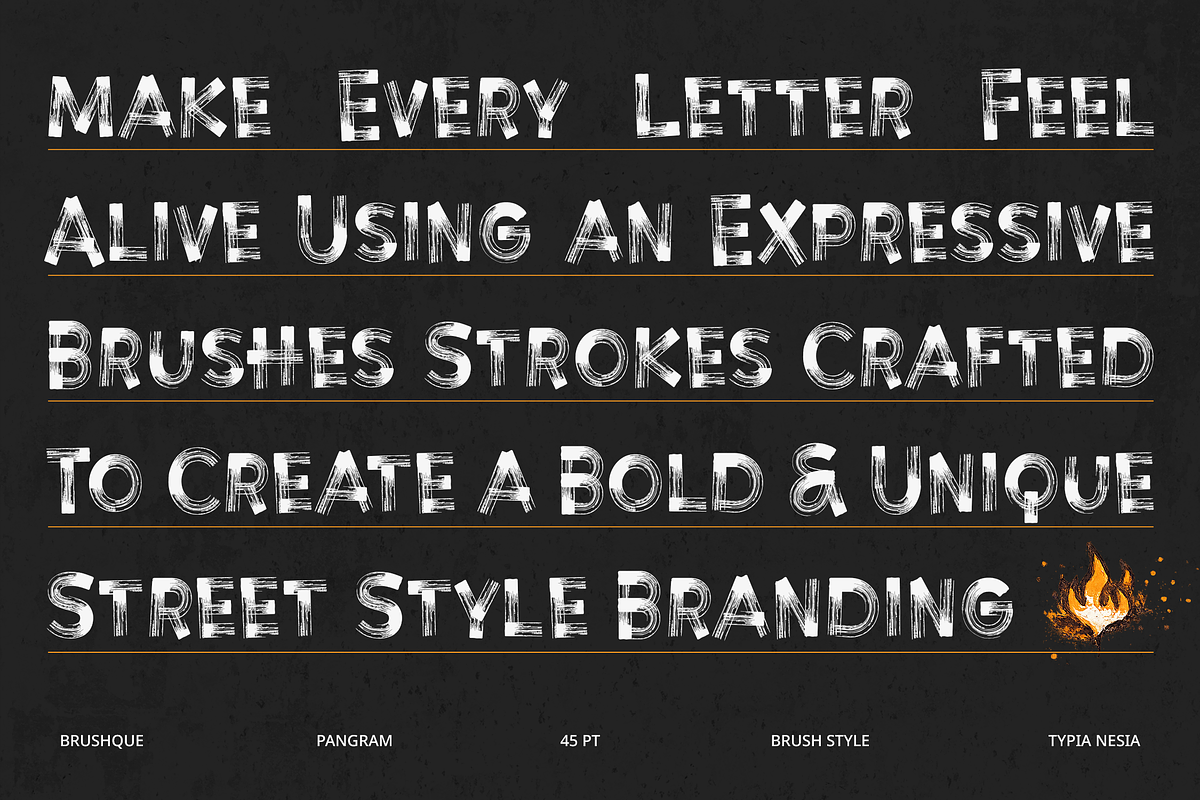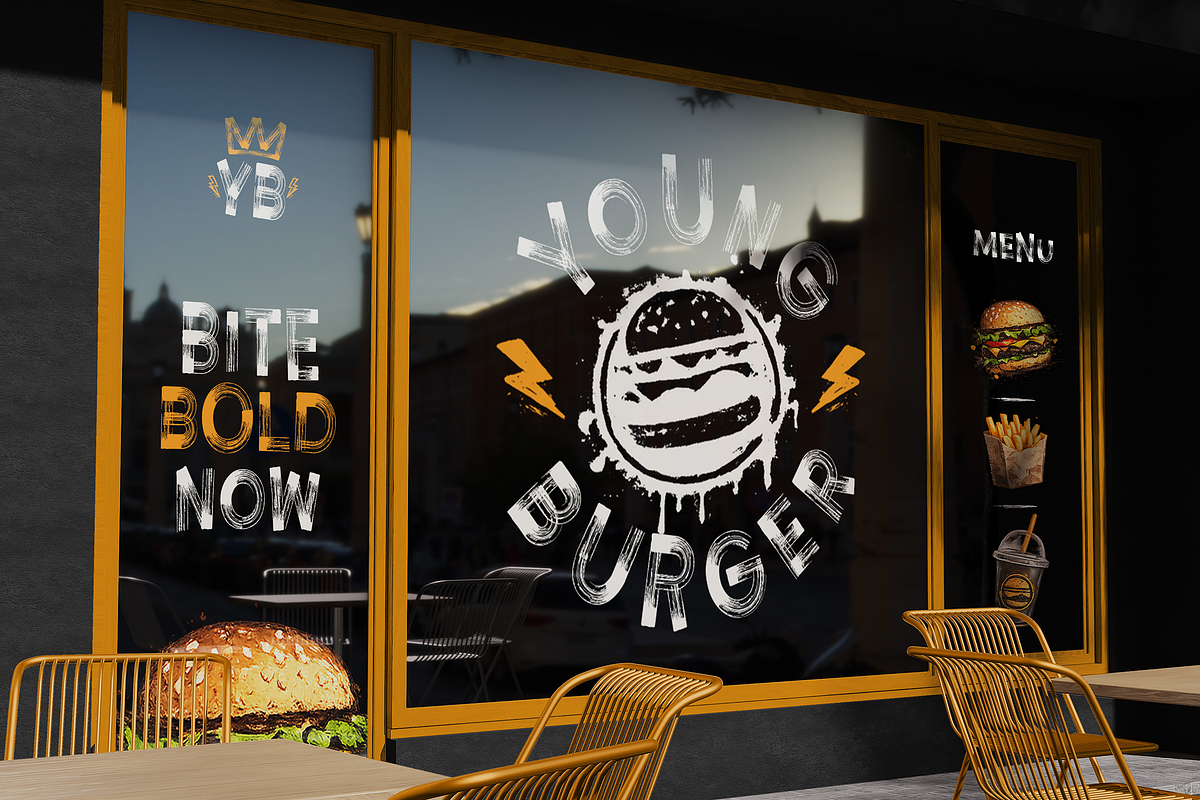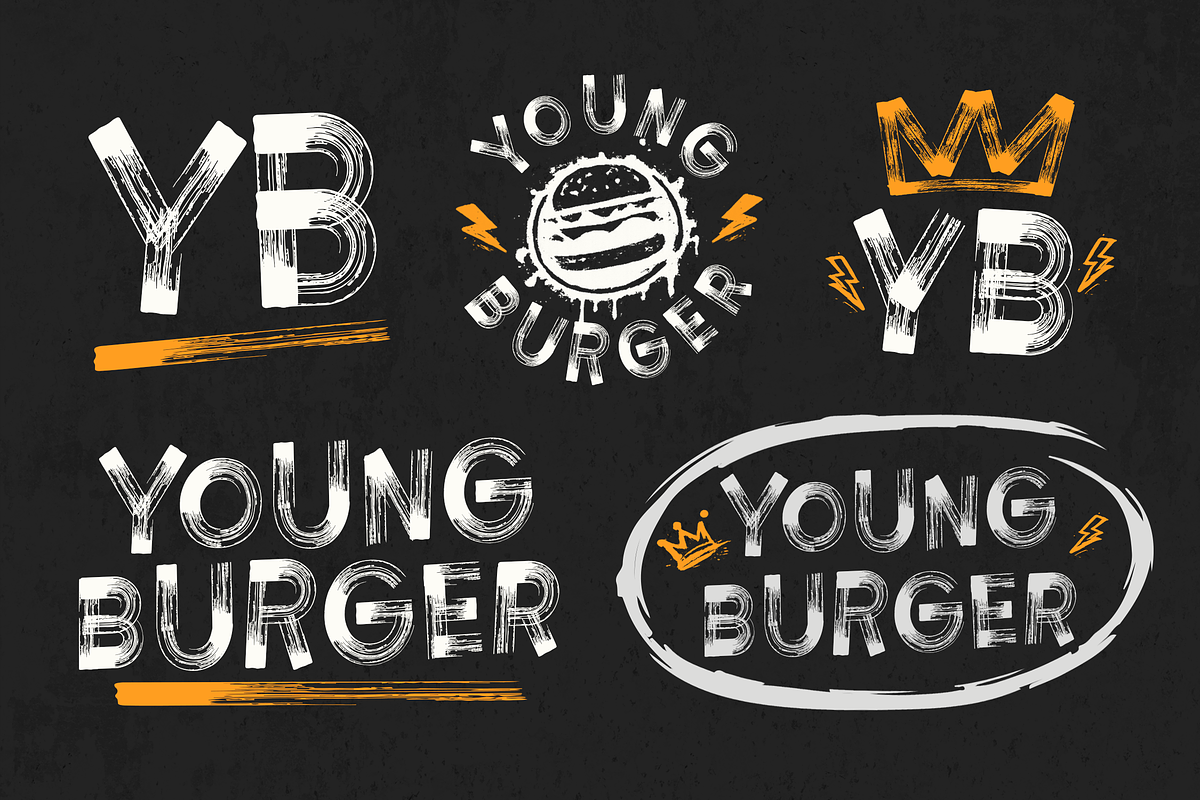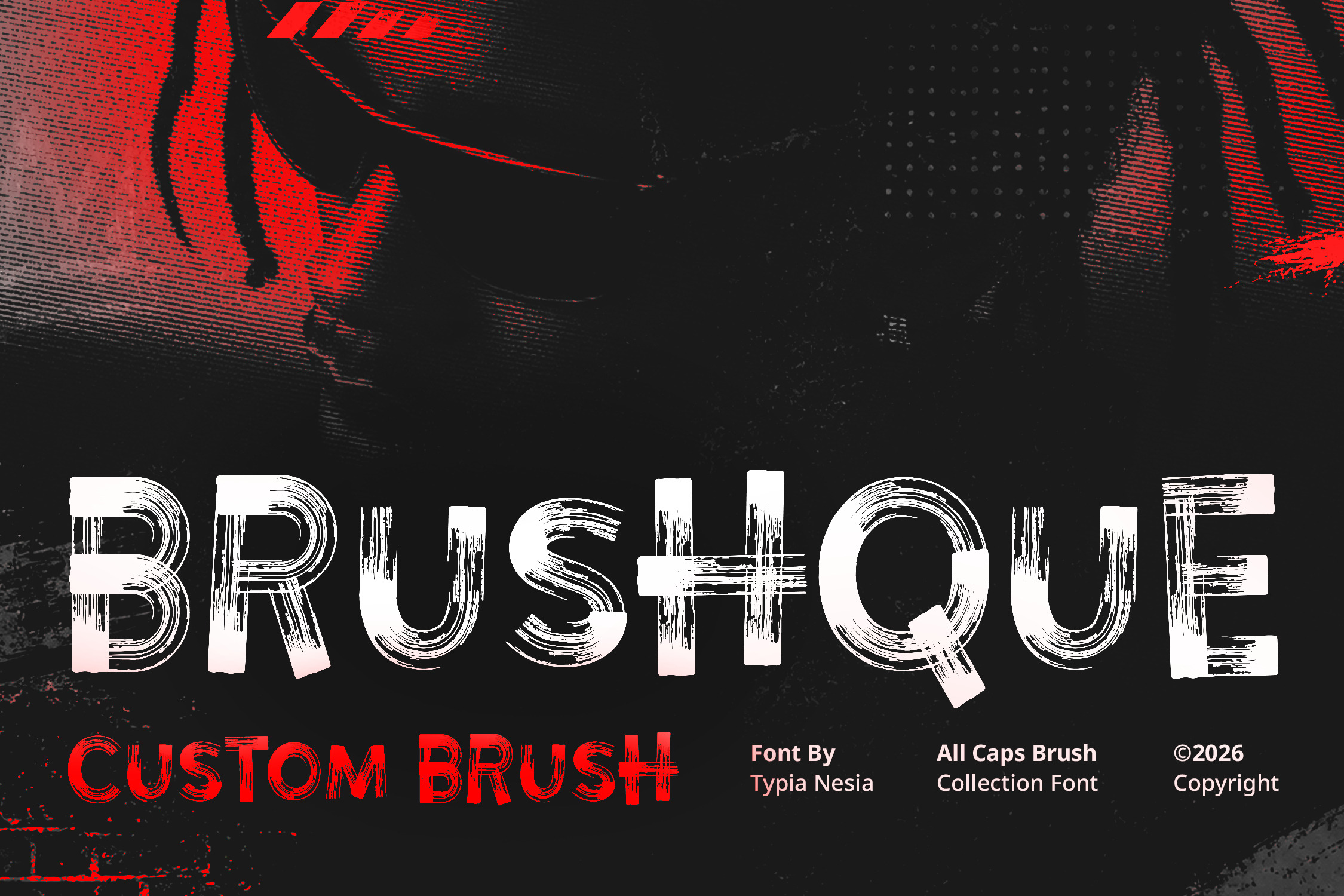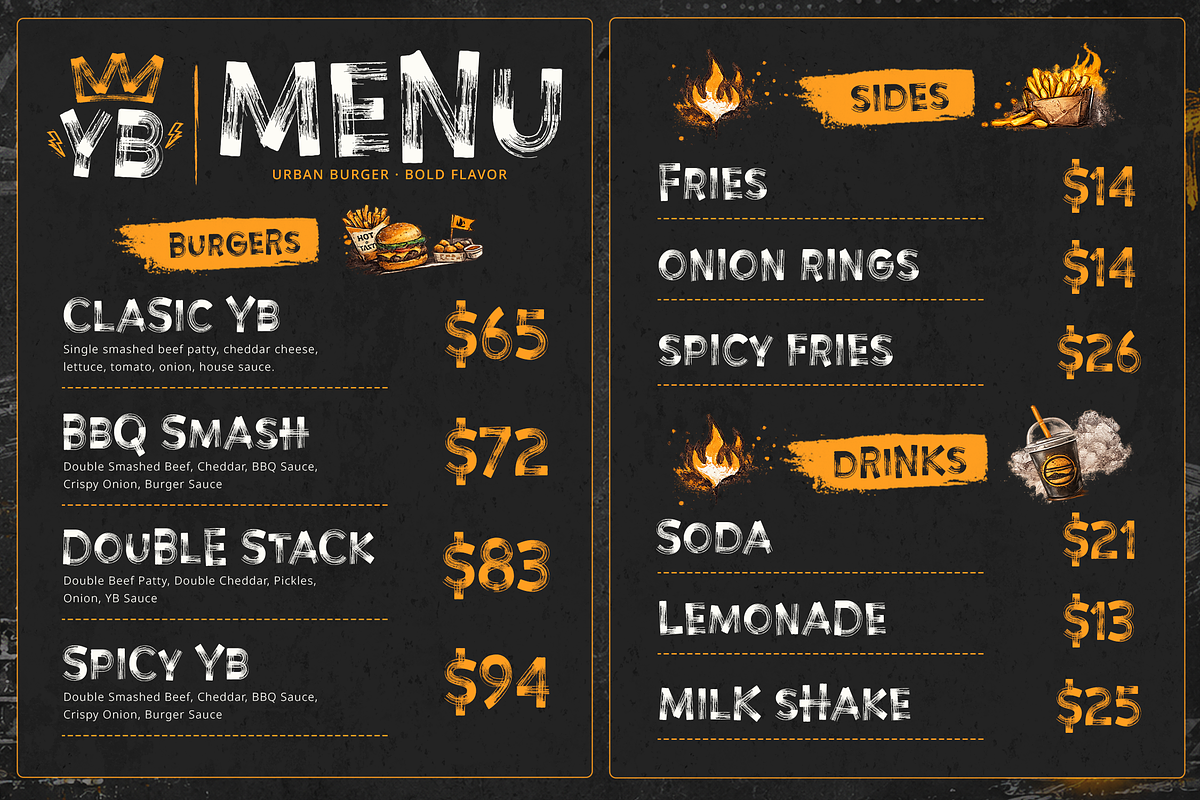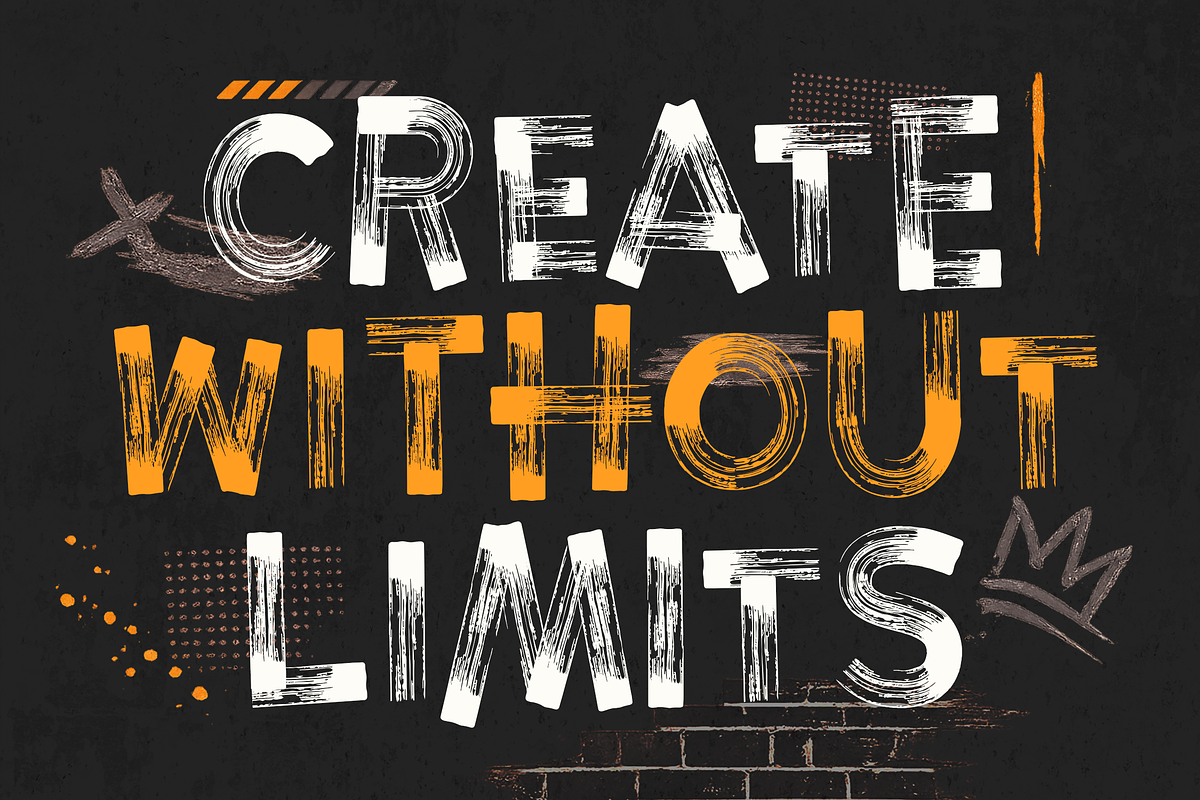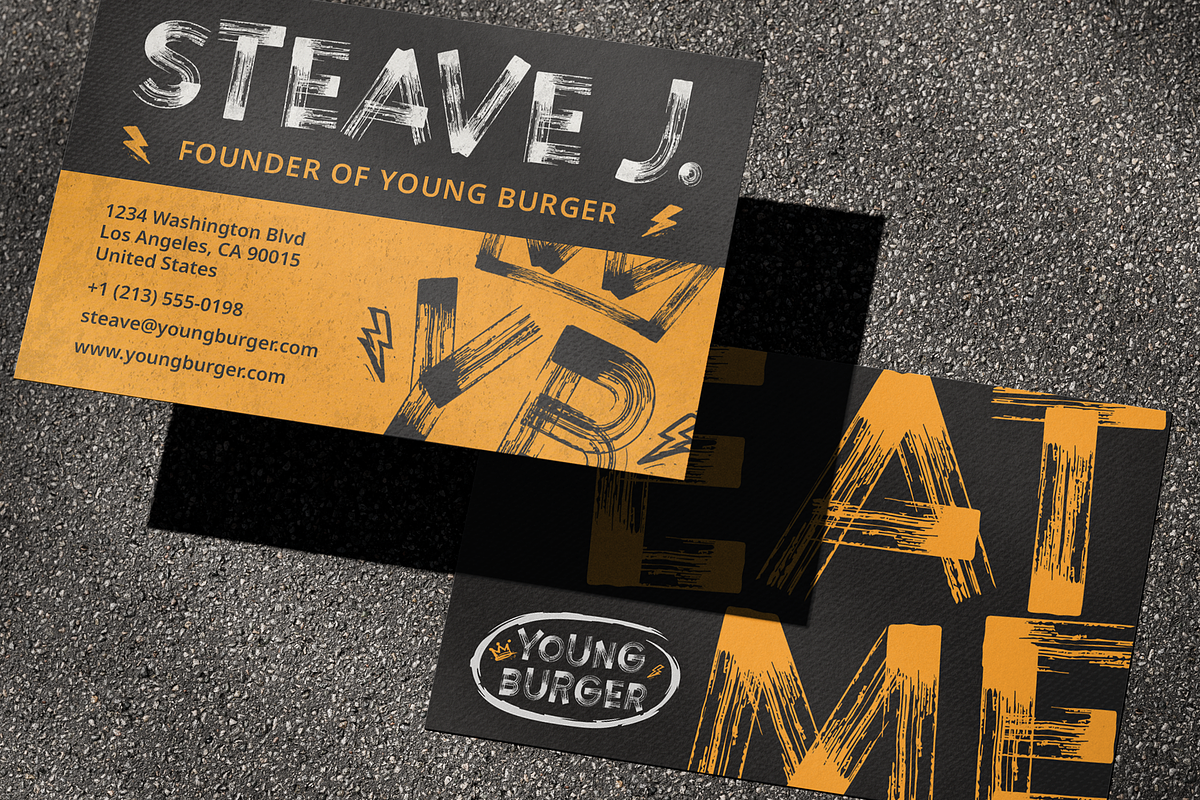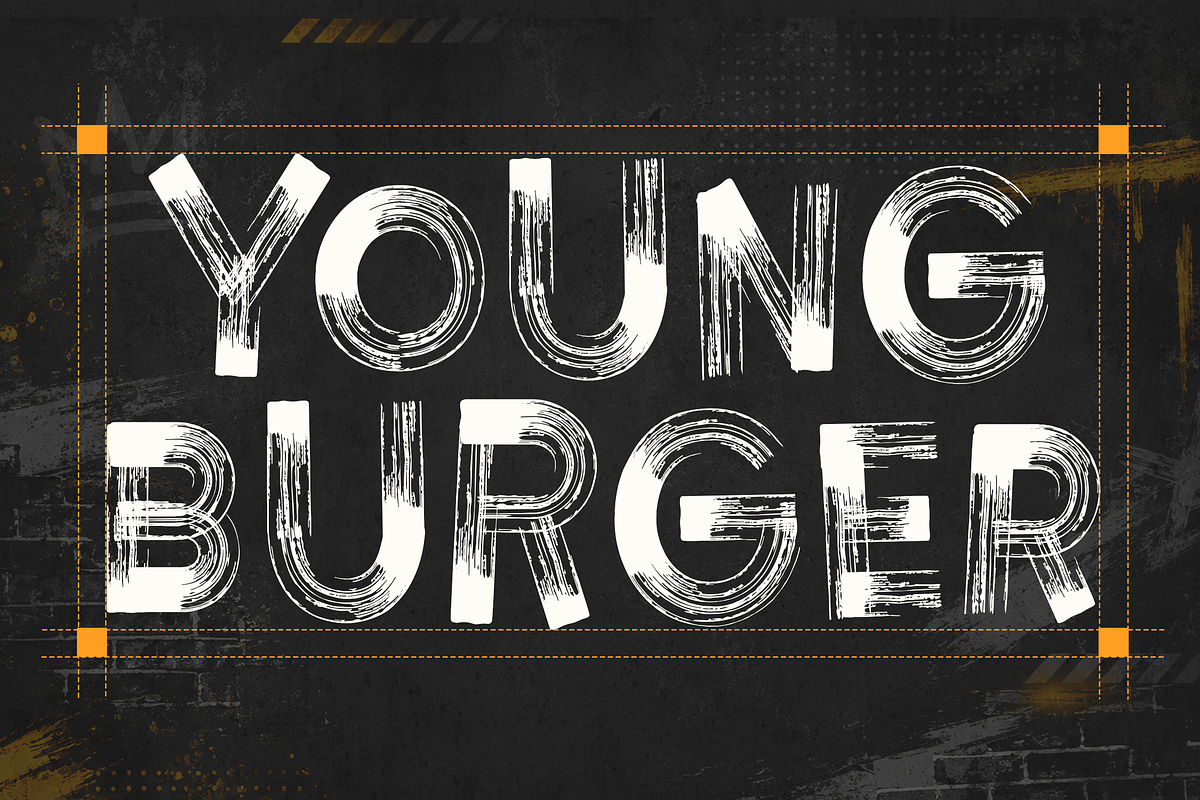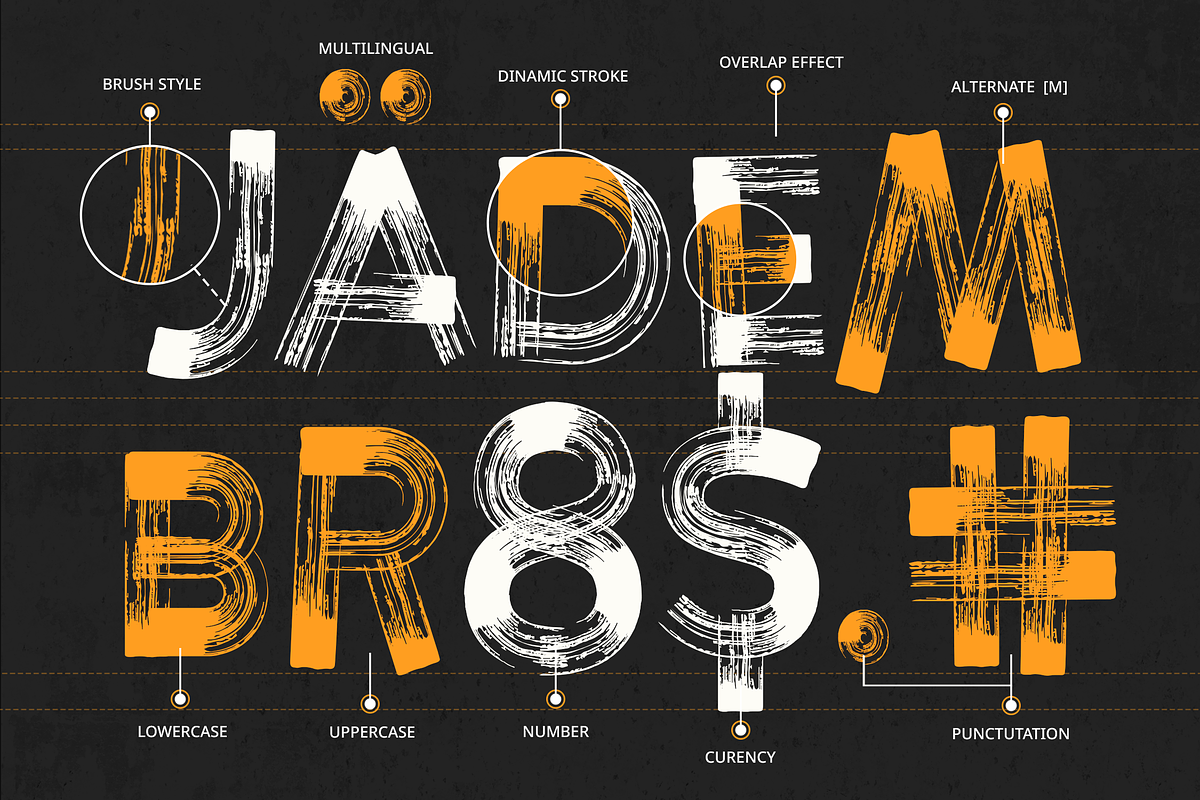
Brushque - Dry Brush Paint Font
Brushque - Dry Brush Handcrafted Display Font
Brushque is a bold dry brush display font featuring expressive paint strokes, handcrafted textures, and an authentic artistic finish. Designed to bring movement and personality into every headline, it delivers a striking visual impact that balances creative freedom with modern design aesthetics.
Perfect for logos, street branding, posters, album covers, editorial headlines, product packaging, advertising campaigns, social media graphics & thumbnails, and creative merchandise. Make every design feel handcrafted, energetic, and unforgettable with the expressive brush character of Brushque.